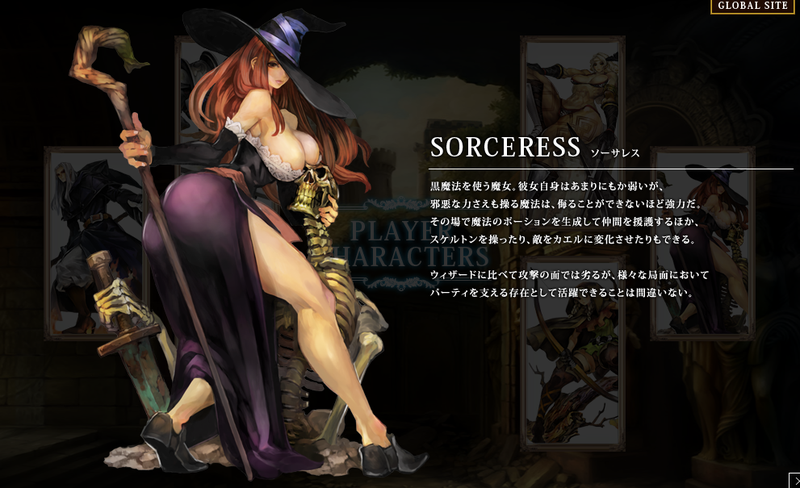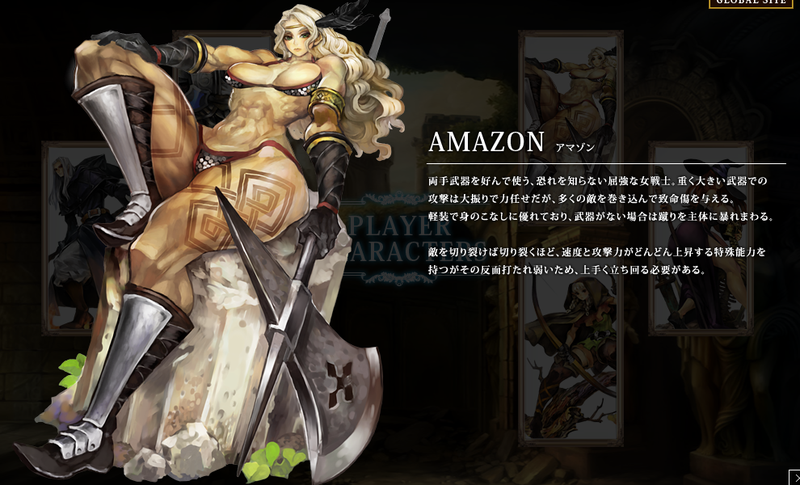
PlayStation title Dragon’s Crown has the worst game title font I’ve ever seen. It also has enormous norgs. Go figure.
Developed by Vanillaware (Odin Sphere, Muramasa), the inclusion of stylized female form isn’t a shockāthat illegible font is.
Dragon’s Crown is headed to the PS3 and PS Vita will be released globally in spring 2012.